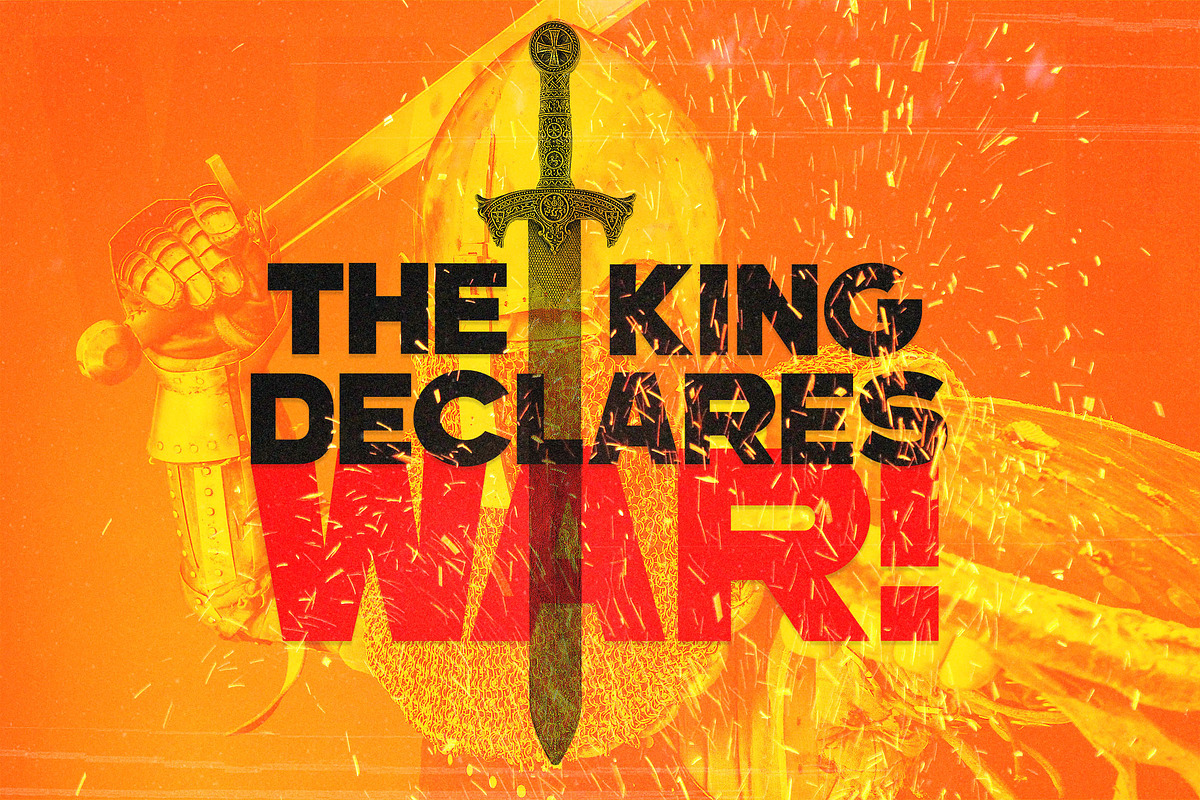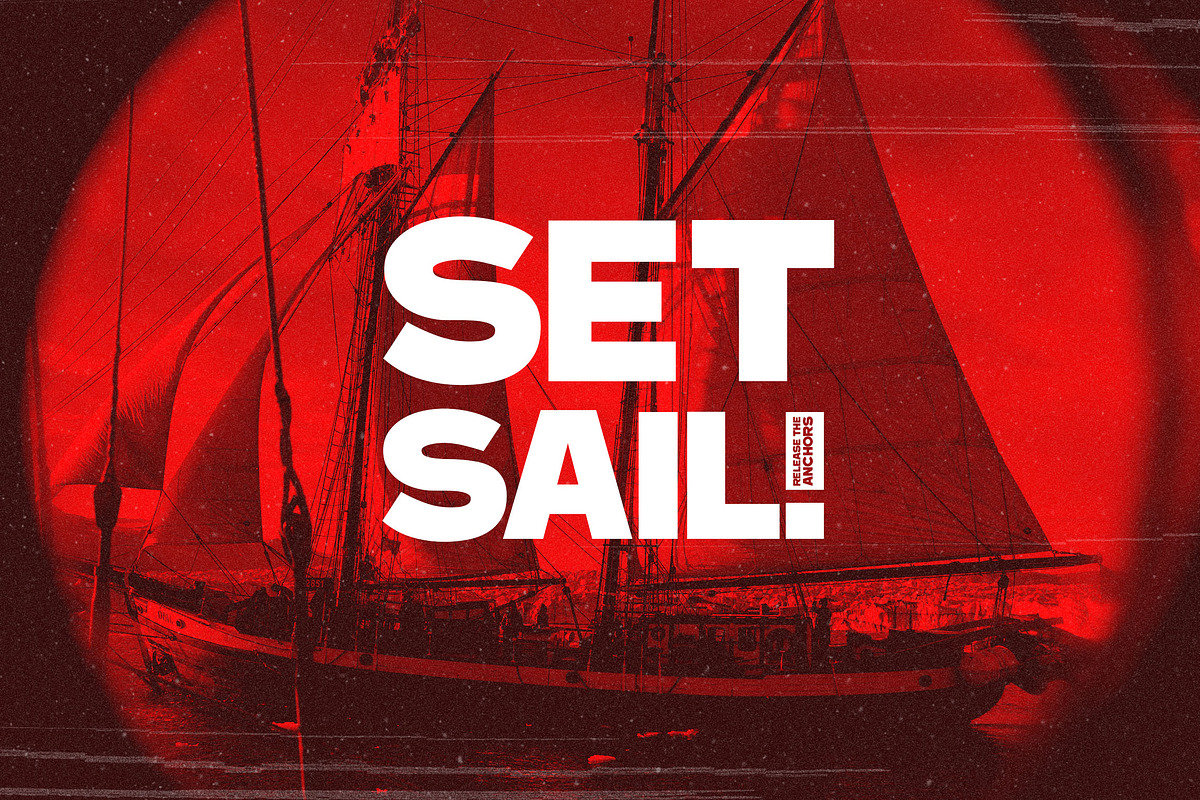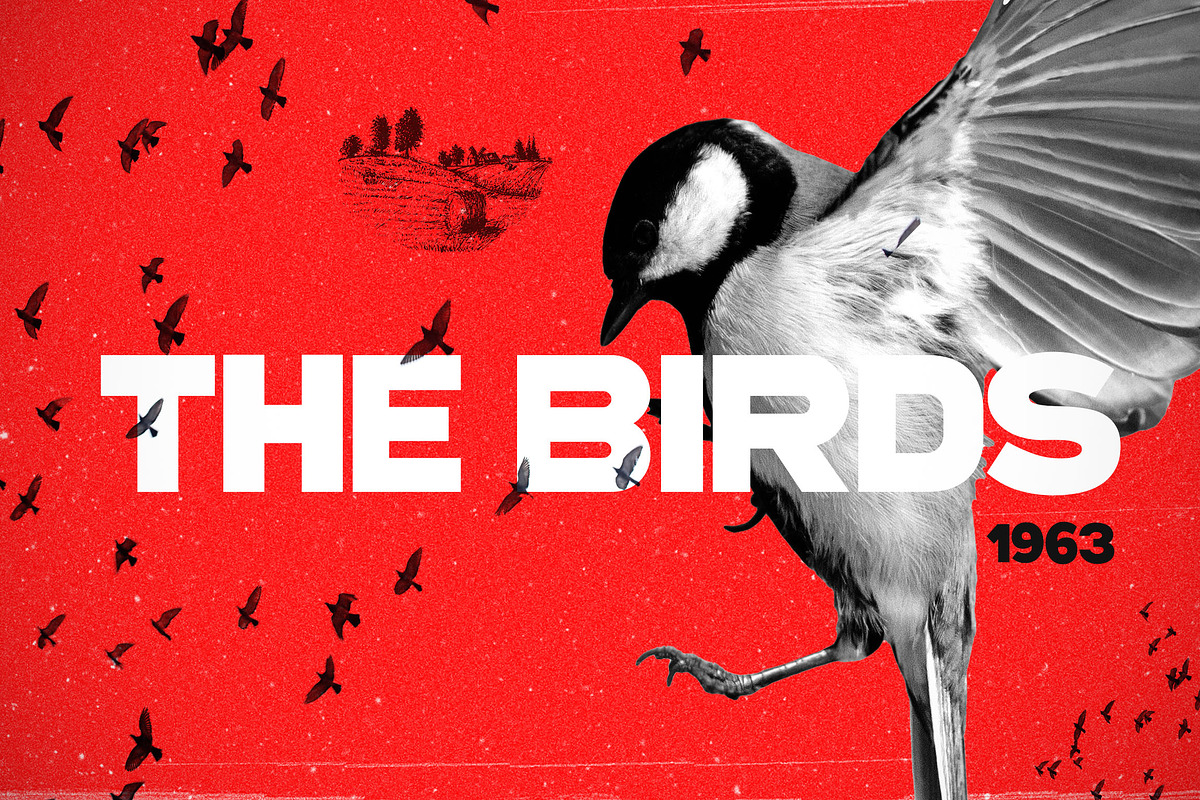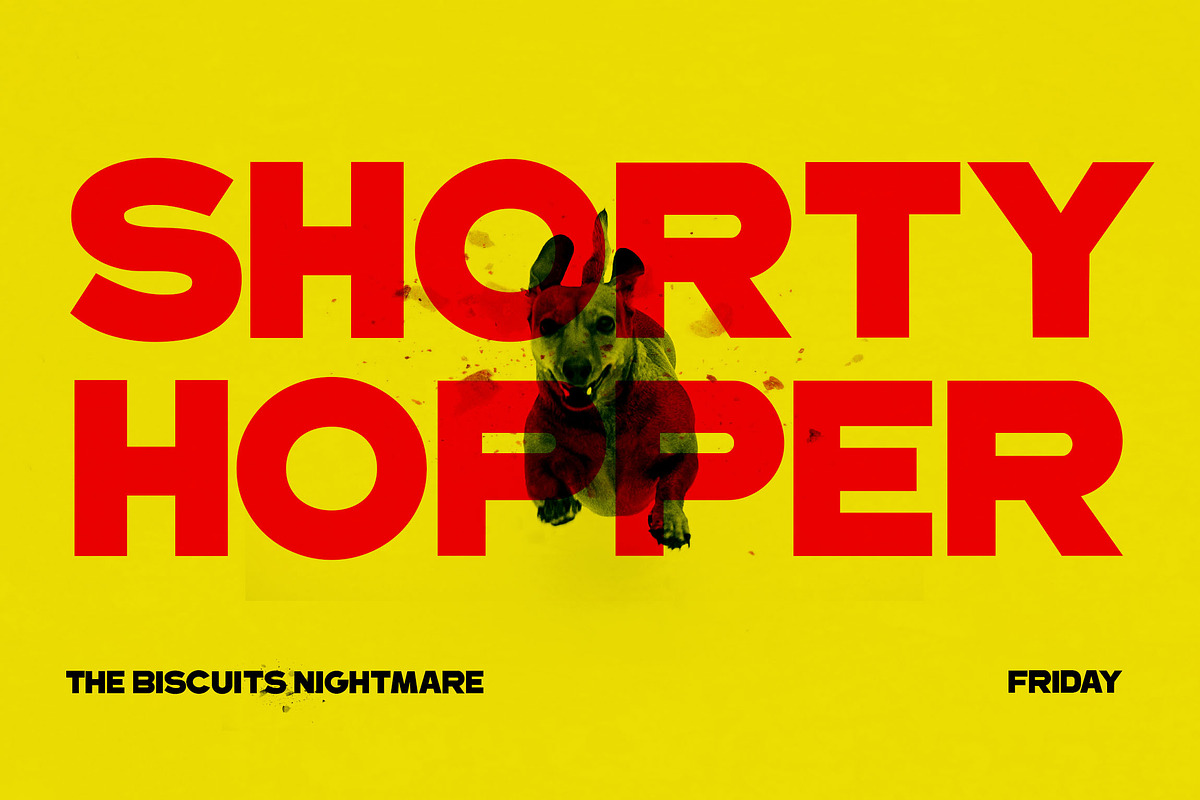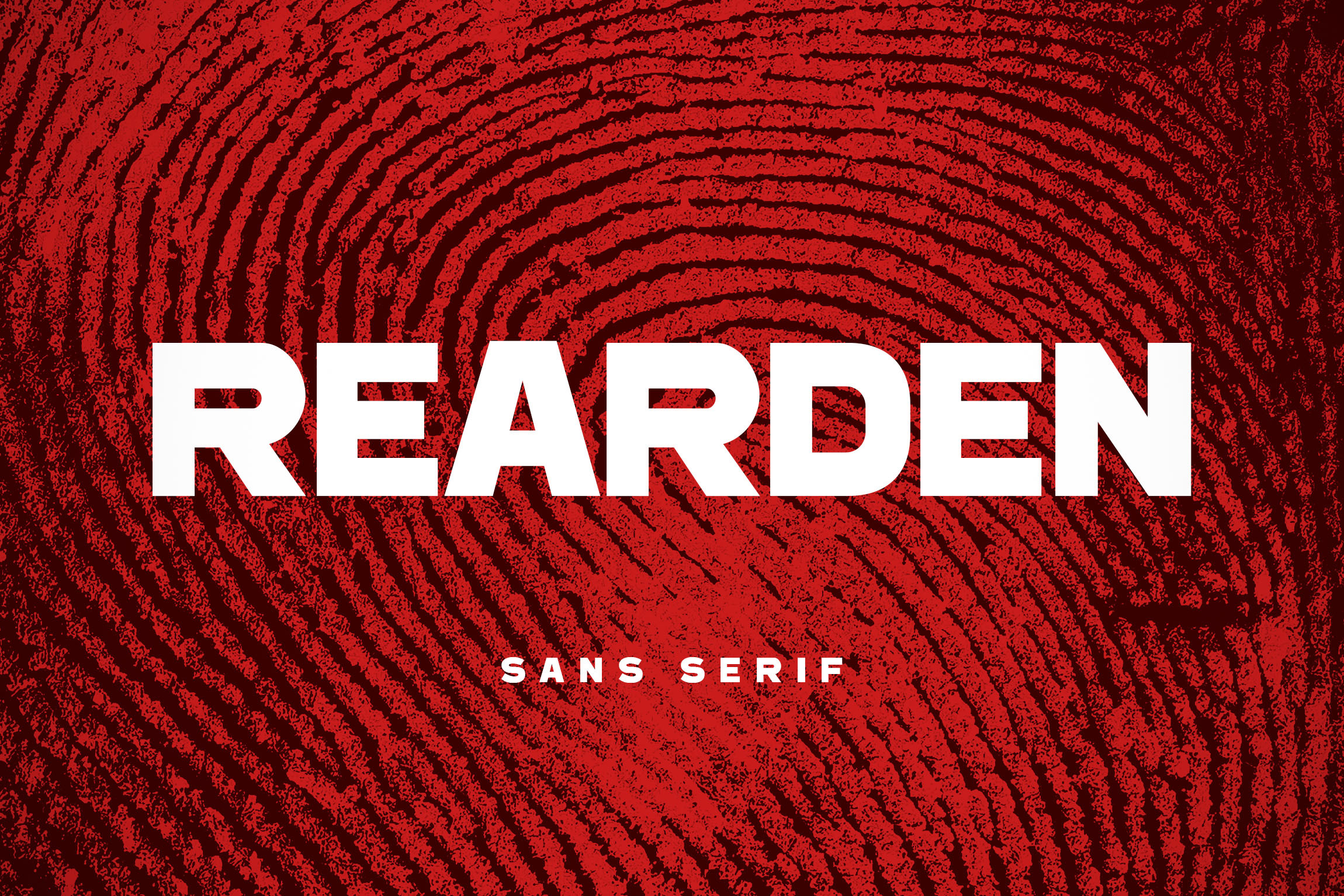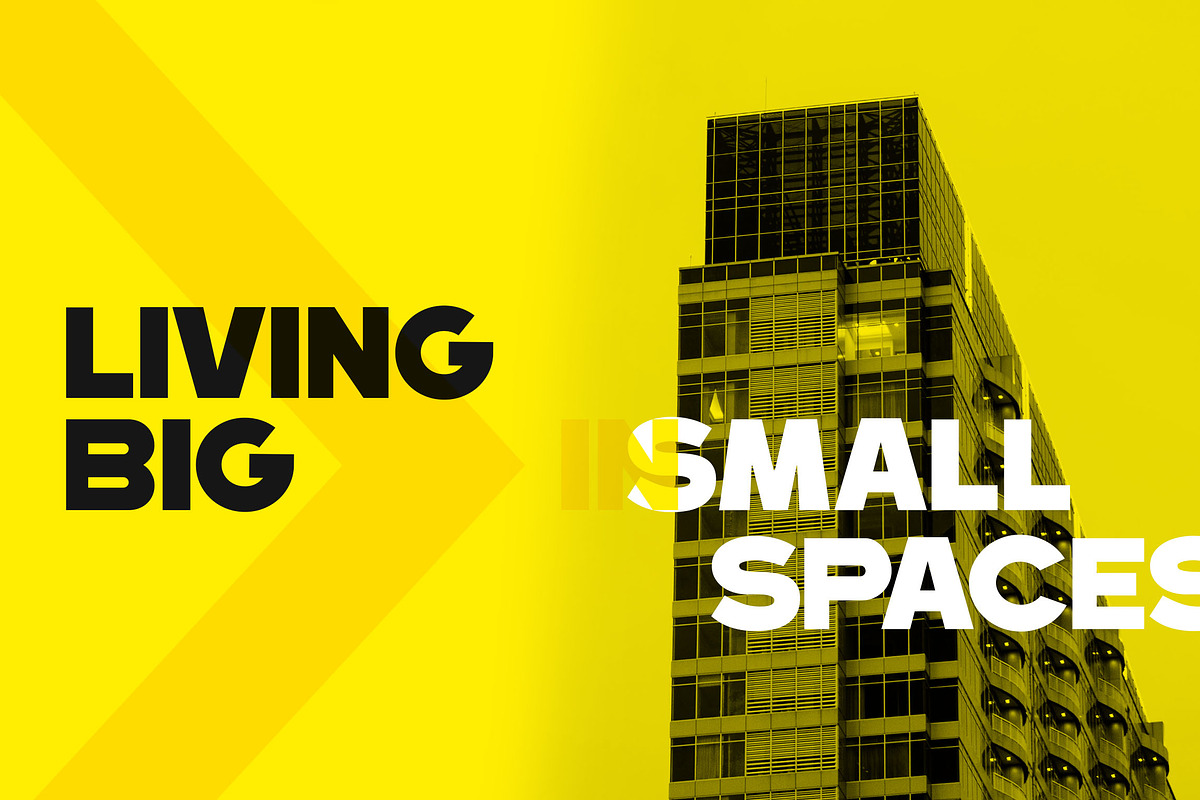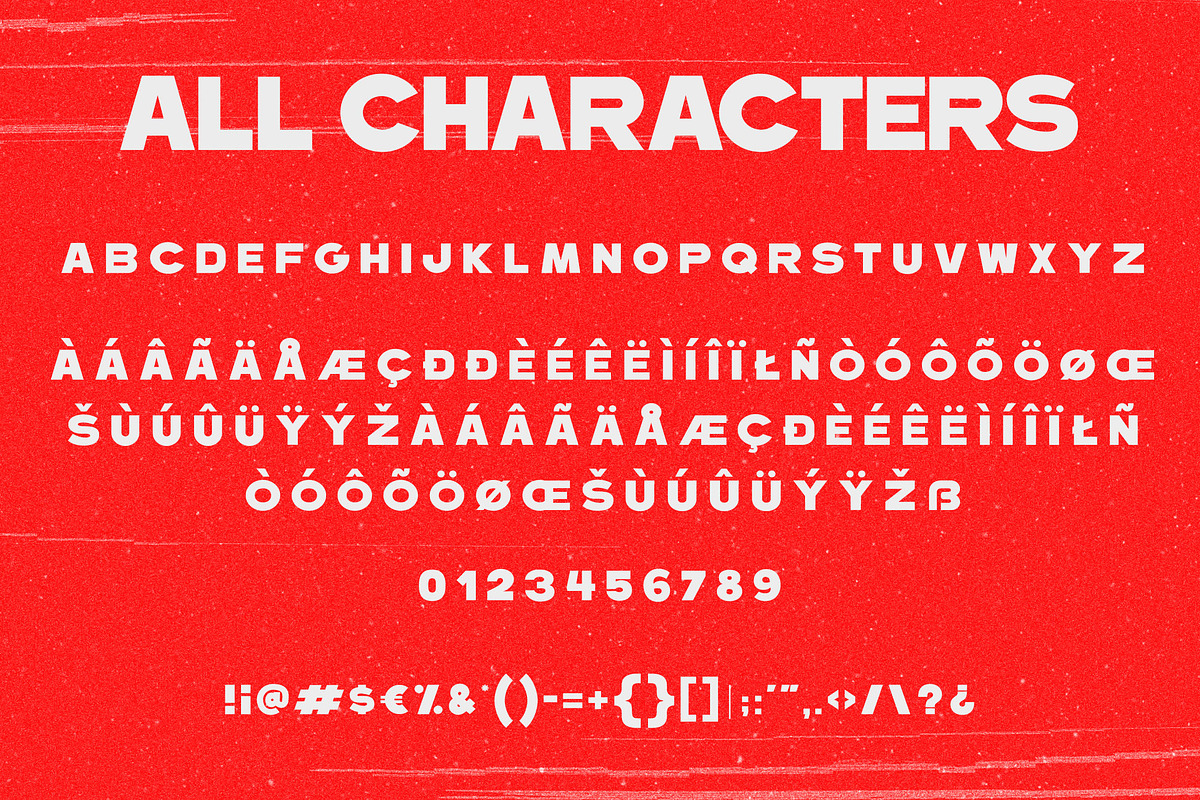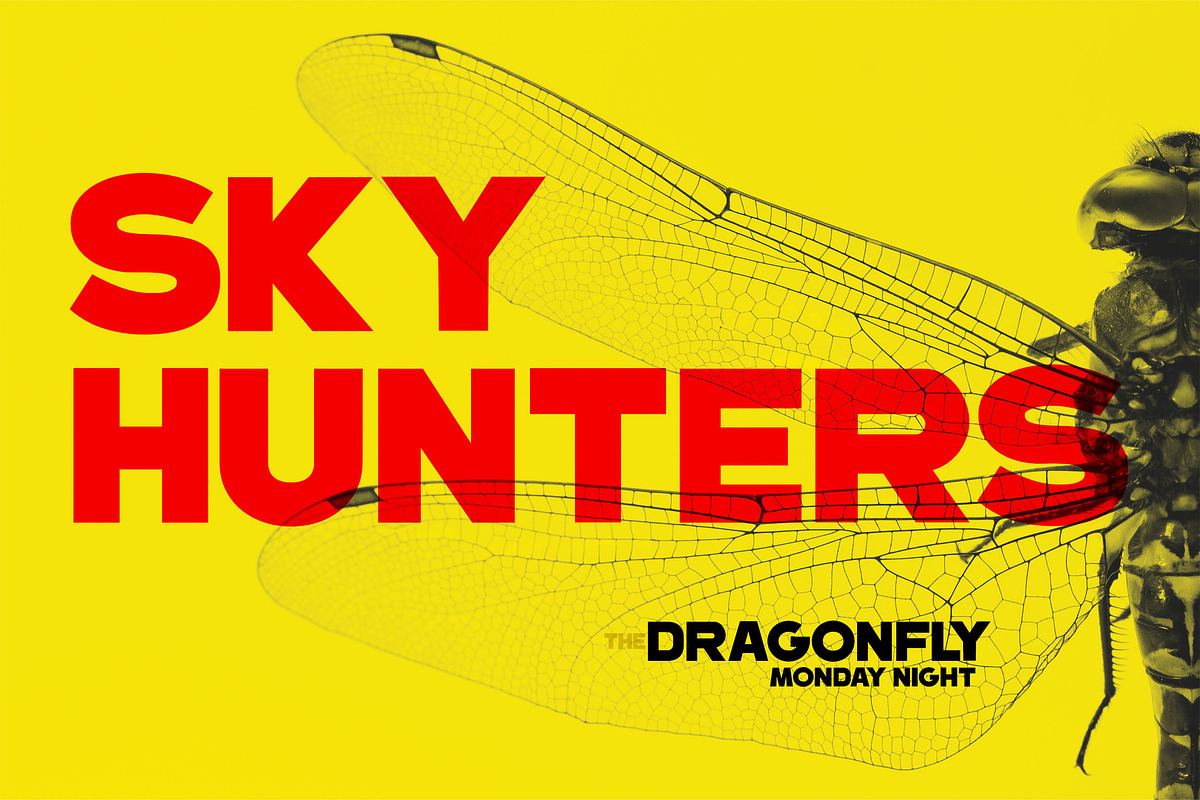
Rearden - Sans Serif Font
Bold and Strong visuals typeface! Great for Headlines and use over images.
All Caps Font
Language Support: English, French, Portuguese and Spanish.